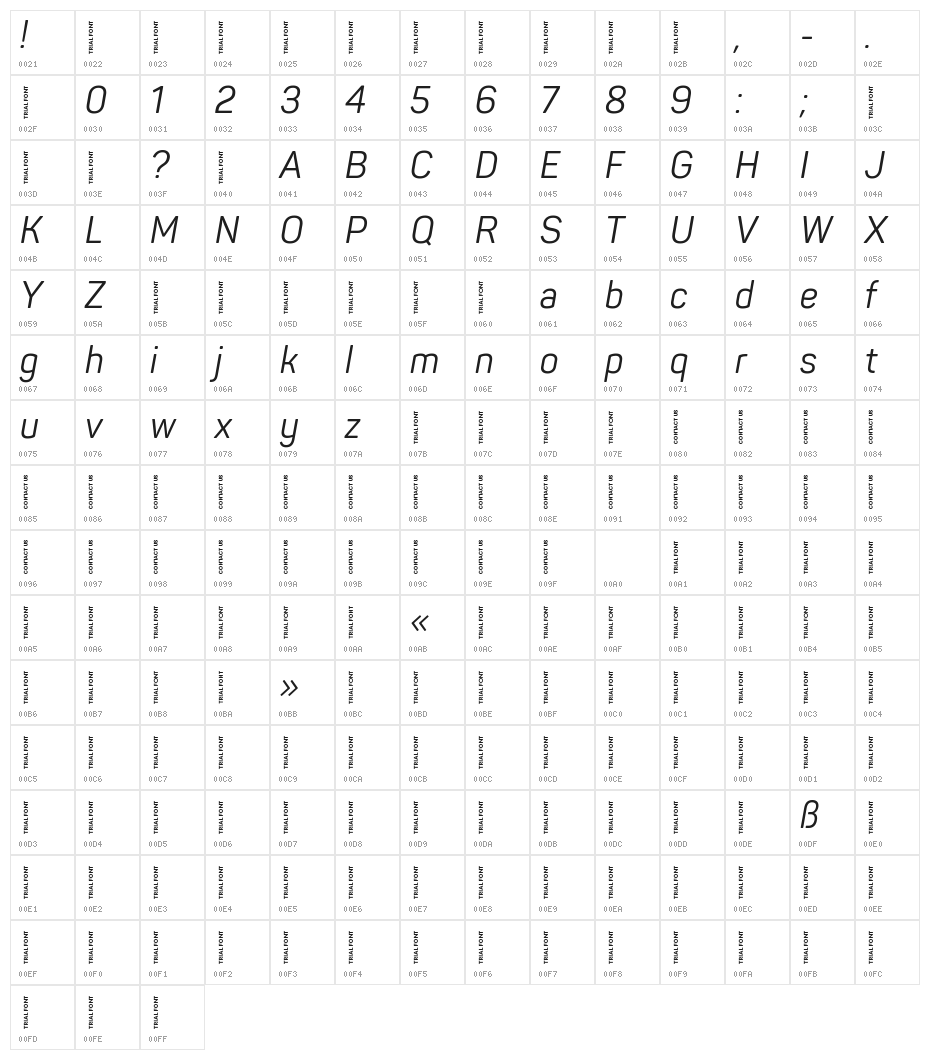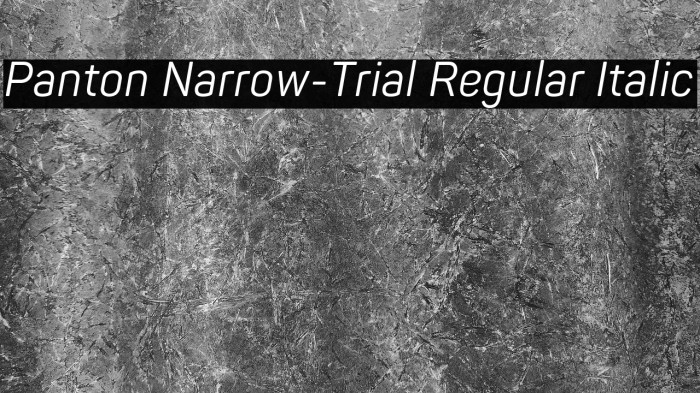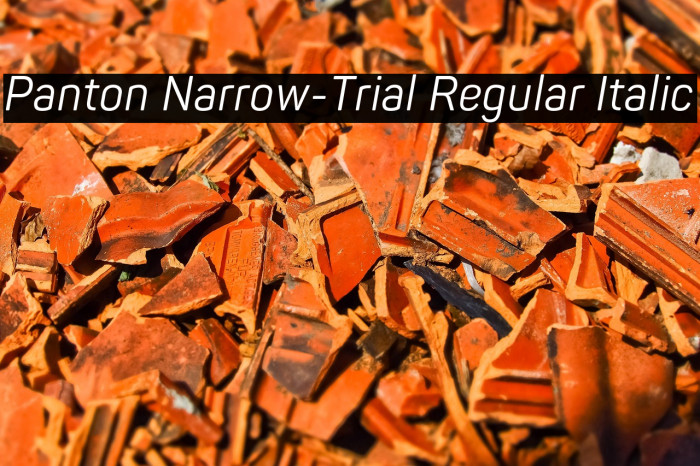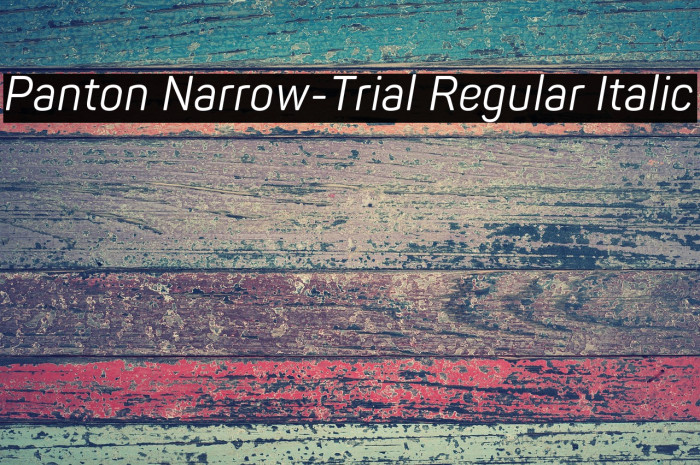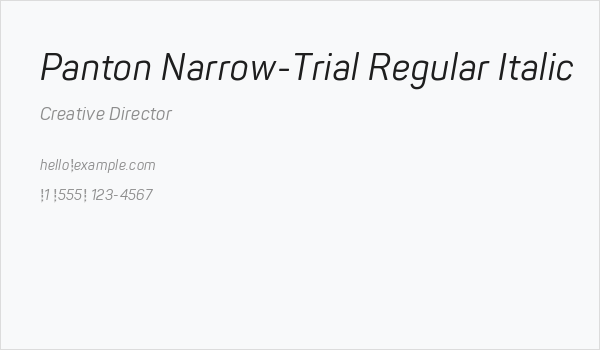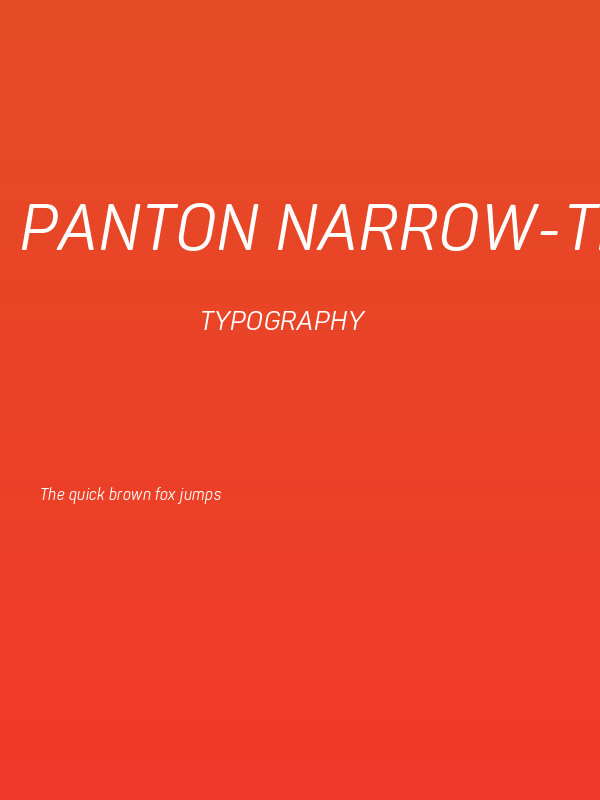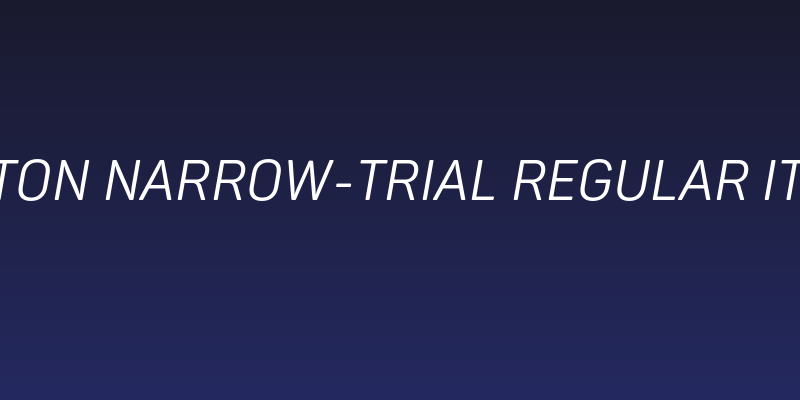
Panton Narrow-Trial Regular Italic Font
Panton Narrow-Trial Regular Italic Description
This font features a sleek, modern design with a narrow structure that gives it a streamlined appearance. The italic style adds a dynamic and forward-leaning aspect, enhancing its contemporary feel. Each character is crafted with precision, maintaining a consistent stroke width that contributes to its clean and professional look. The font's design is well-suited for digital and print media, offering excellent readability across various sizes. Its minimalist aesthetic makes it versatile for a range of applications, from branding to editorial design.
Proposed ProjectsIdeal for branding, editorial design, digital interfaces, and modern advertising.